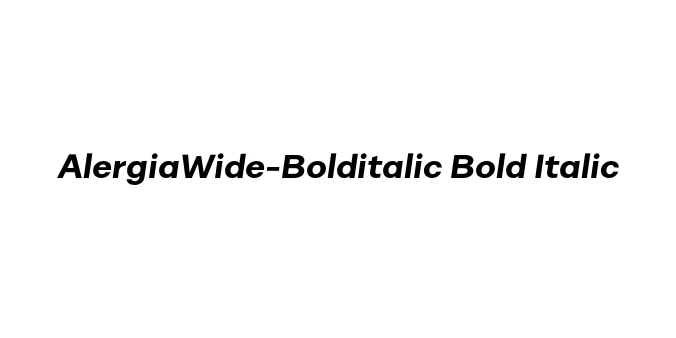
AlergiaWide-Bolditalic Bold Italic
Designed by Mateusz Machalski
AlergiaWide-Bolditalic is a prominent member of the Alergia superfamily, a comprehensive type system designed by the renowned Polish typographer Mateusz Machalski. This specific weight is characterized by its generous horizontal proportions and a sharp, geometric structure that balances technical precision with high-fashion elegance. It was developed to serve as a modern alternative to traditional wide sans-serifs, offering a unique hybrid aesthetic that fits seamlessly into contemporary design workflows.
The Bold Italic variant of the Alergia Wide family is particularly noted for its dynamic energy and assertive presence. Released through the Machalski foundry, the typeface has been widely adopted in editorial design, corporate branding, and high-impact advertising. Its construction focuses on clean lines and distinct terminals, making it highly legible even in demanding display environments where a sense of speed and modernity is paramount.
AlergiaWide-Bolditalic Bold Italic Best Uses
Commanding attention in magazine layouts and large-scale posters.
Perfect for automotive, tech, or sports branding requiring a sense of motion.
Creating a strong visual statement on modern landing pages.
High-visibility promotional banners and social media graphics.